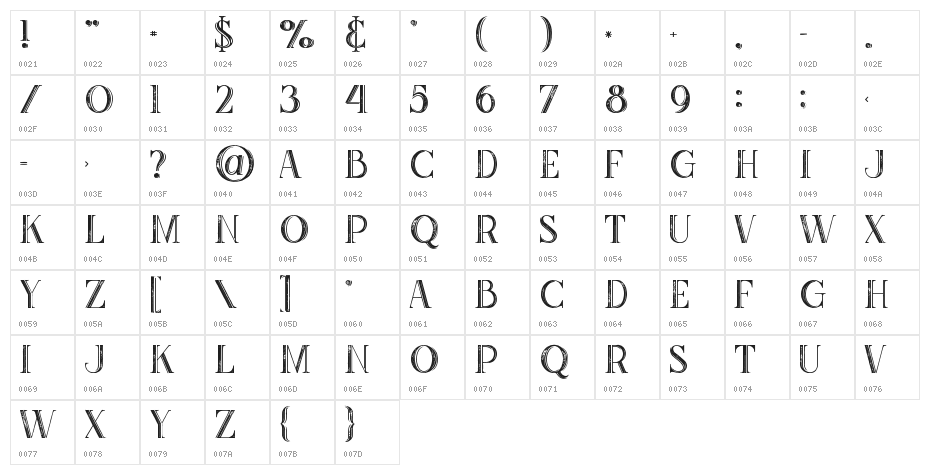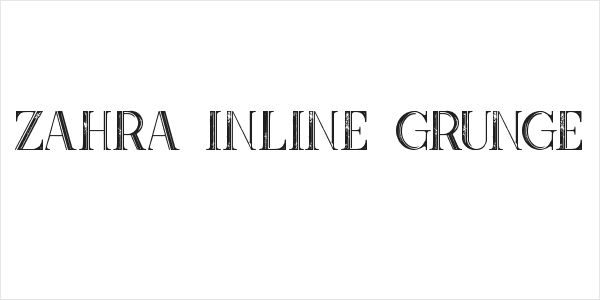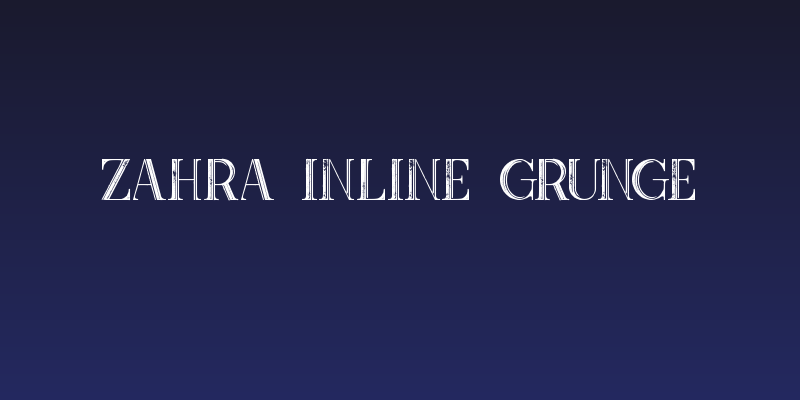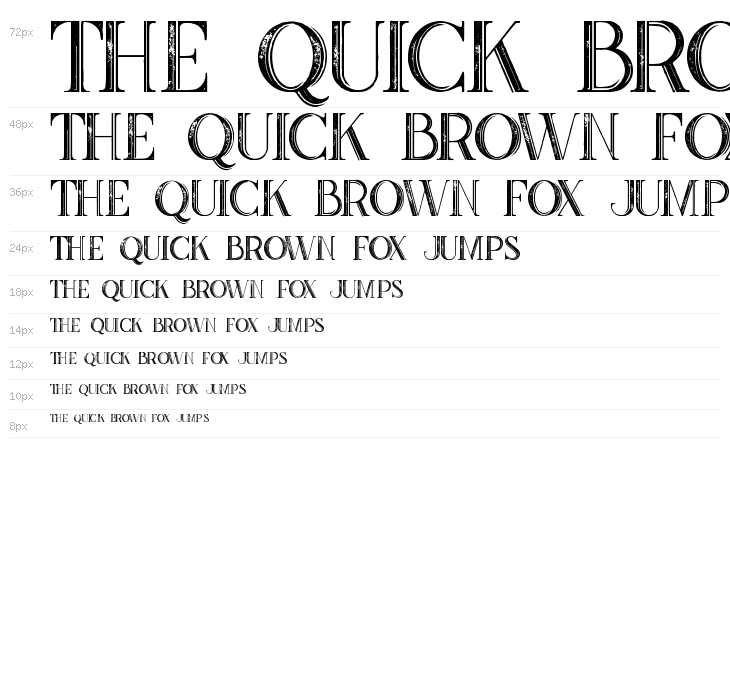
Zahra Inline Grunge Font
Zahra Inline Grunge Description
This font features a distinctive grunge style with an inline design that gives it a worn, textured appearance. The uppercase and lowercase letters maintain a consistent height, creating a balanced look. The numerals and special characters are equally detailed, with a distressed effect that adds to the overall aesthetic. The strokes are bold with medium contrast, and the inline detail provides a unique visual interest. This font is ideal for projects that require a vintage or edgy feel, making it suitable for posters, album covers, or branding that seeks to convey a sense of ruggedness or authenticity.
Overall StyleVintage, Grunge
Proposed ProjectsIdeal for posters, album covers, branding, and any design needing a rugged, vintage look.